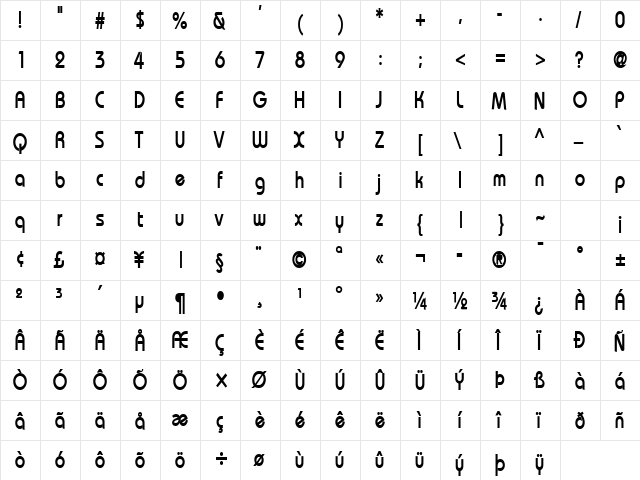
Bimini-Condensed Bold Font Preview
Bimini-Condensed Bold
Bimini-Condensed Bold Font Details
Design Context for Bimini-Condensed Typeface
Bimini-Condensed offers clean, dependable letterforms without strong stylistic allegiance, making it a practical choice for designers who need flexibility. Its bold stroke weight gives it real presence on the page. Its narrow stance lets it pack a punch even in space-constrained designs.